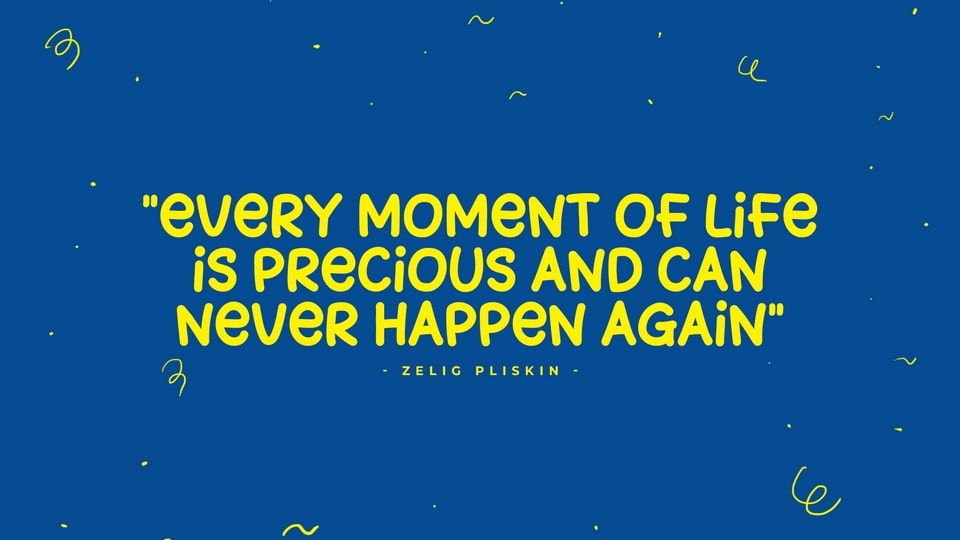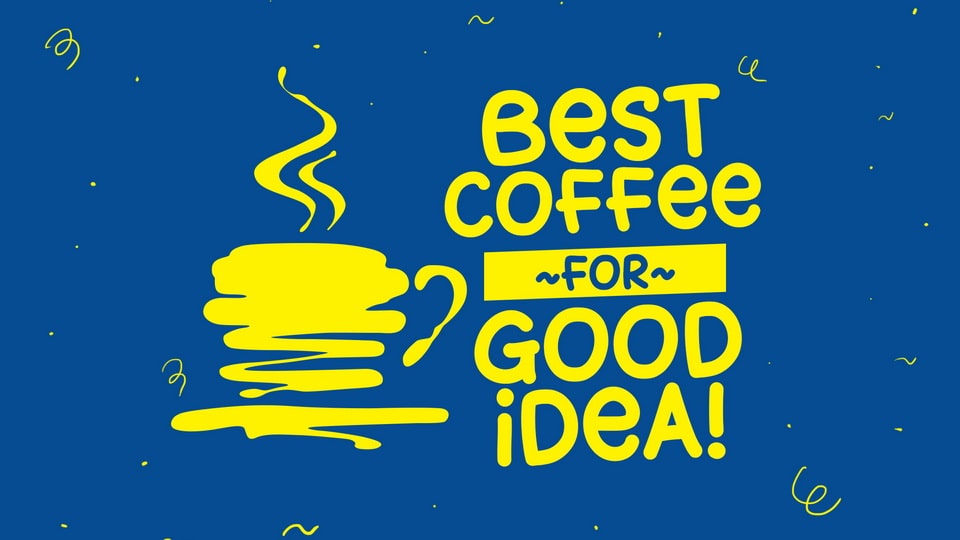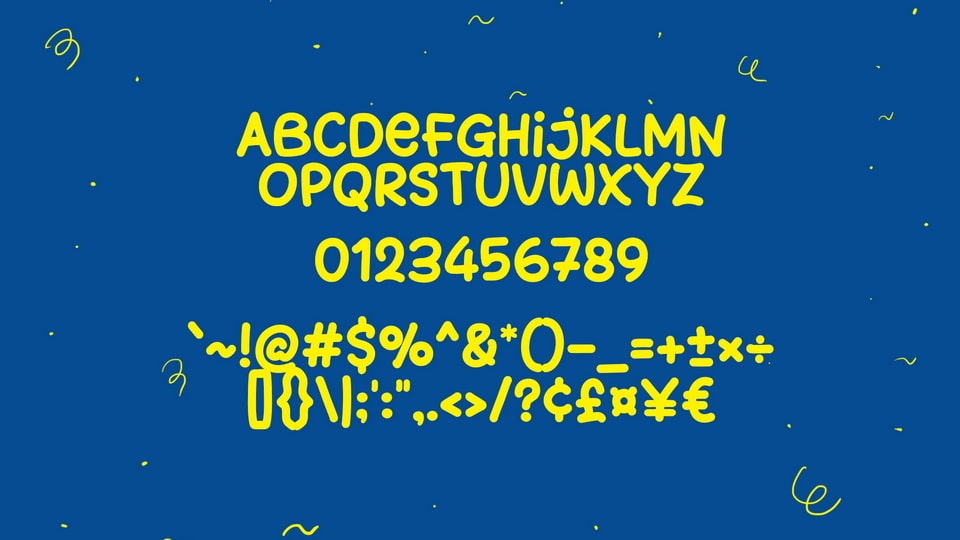
January Snack is a funny and smooth hand-drawn comic font that brings laughter and lightness to your designs. Its playful, rounded letterforms flow with an effortless charm, creating a carefree and approachable vibe. The subtle imperfections of its hand-drawn style add a personal and whimsical touch, perfect for designs that aim to entertain and delight.
Ideal for comic strips, children’s books, playful branding, and cheerful posters, January Snack font is as versatile as it is full of personality. Its smooth and friendly curves ensure readability while adding a dash of humor and fun to every letter.
Brighten up your designs with January Snack—a font that guarantees smiles!